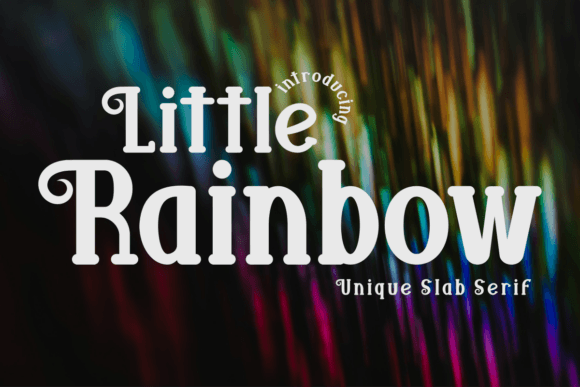
Little Rainbow: A Bold, Versatile Font for Winter and Holiday Projects
If you're looking for a font that brings a splash of color and energy to your winter and holiday designs, Little Rainbow is the perfect choice. This modern slab serif typeface draws inspiration from classic college lettering, giving it a fresh, eye-catching look that works well in a variety of creative and commercial settings. Whether you're designing a holiday card, crafting a t-shirt, or creating a logo, Little Rainbow adds a playful yet professional touch that stands out.
Where and When to Use Little Rainbow
Little Rainbow shines in any project that calls for a festive, bold aesthetic. Its strong lines and vibrant personality make it ideal for winter and holiday branding. Think of a cozy Christmas card with a handwritten feel, a snow-themed poster for a local event, or a holiday promotion for a boutique shop. The font’s structure also makes it great for text effects, making it a favorite among designers who want to add visual interest to their work.
It's not just for holidays, though. The font’s versatility means it can be used in a range of other contexts too. For example, a small business owner might use it for product packaging, while a teacher could incorporate it into classroom materials or bulletin boards. Its clean, readable design ensures it remains legible even at smaller sizes, making it suitable for everything from signage to digital content.
Real-World Use Cases for Different Users
For creators and entrepreneurs, Little Rainbow offers a unique way to stand out in a crowded market. A graphic designer working on a holiday campaign might use it to create a striking headline for a social media post or a promotional flyer. The font’s boldness helps capture attention without overwhelming the viewer, making it a go-to choice for eye-catching visuals.
Small business owners can benefit from using Little Rainbow in their branding efforts. Imagine a coffee shop that wants to update its seasonal menu with a festive twist. Using this font for the title of a holiday drink or a special offer can instantly elevate the design and make it more appealing to customers. It’s also a great option for e-commerce businesses looking to add a personal touch to product listings or packaging.
Bloggers and educators might find Little Rainbow useful for creating engaging content. A teacher could use it to design a holiday-themed worksheet or a fun classroom sign. Meanwhile, a blogger writing about winter activities could use the font to highlight key sections of an article or to create a visually appealing header for a post about holiday traditions.
How Different Users Can Benefit
One of the strengths of Little Rainbow is its adaptability. It works well in both digital and print formats, making it a valuable tool for a wide range of users. A freelance designer might use it for a client’s holiday marketing materials, while a hobbyist could use it to create personalized gifts or handmade cards. Its clean, modern look also makes it suitable for professional projects, such as logos or brand identities that need a touch of creativity without being too flashy.
For those new to typography, Little Rainbow is a great starting point. Its clear structure and bold style make it easy to work with, even if you’re not a seasoned designer. It can help beginners create polished-looking designs without needing advanced skills. At the same time, experienced designers will appreciate its flexibility and ability to fit into different styles and themes.
Things to Consider Before Using Little Rainbow
Before incorporating Little Rainbow into your project, it’s important to consider how it will fit with your overall design. While the font is bold and eye-catching, it may not be the best choice for every situation. For instance, if you're designing something that requires a more subtle or elegant look, you might want to pair it with a simpler font or use it sparingly.
Finally, think about the context in which the font will be seen. If you're using it for a digital project, test it on different screens to ensure it looks good in all formats. For print, check how it appears in various sizes and colors to make sure it meets your expectations.
Why Little Rainbow Stands Out
What sets Little Rainbow apart from other fonts is its balance of creativity and practicality. It’s not just a pretty design—it’s a functional tool that can enhance a wide range of projects. Its connection to college lettering gives it a nostalgic, handcrafted feel, while its modern structure ensures it looks fresh and relevant.
Whether you're working on a personal project, a professional design, or a holiday campaign, Little Rainbow offers a versatile solution that can bring your ideas to life. Its bold, expressive style makes it ideal for anything from festive greetings to branded merchandise, and its readability ensures it remains effective in all applications.
By choosing Little Rainbow, you’re not just selecting a font—you’re adding a unique visual element that can make your work stand out. With its mix of style and functionality, it’s a smart choice for anyone looking to create something memorable and impactful.